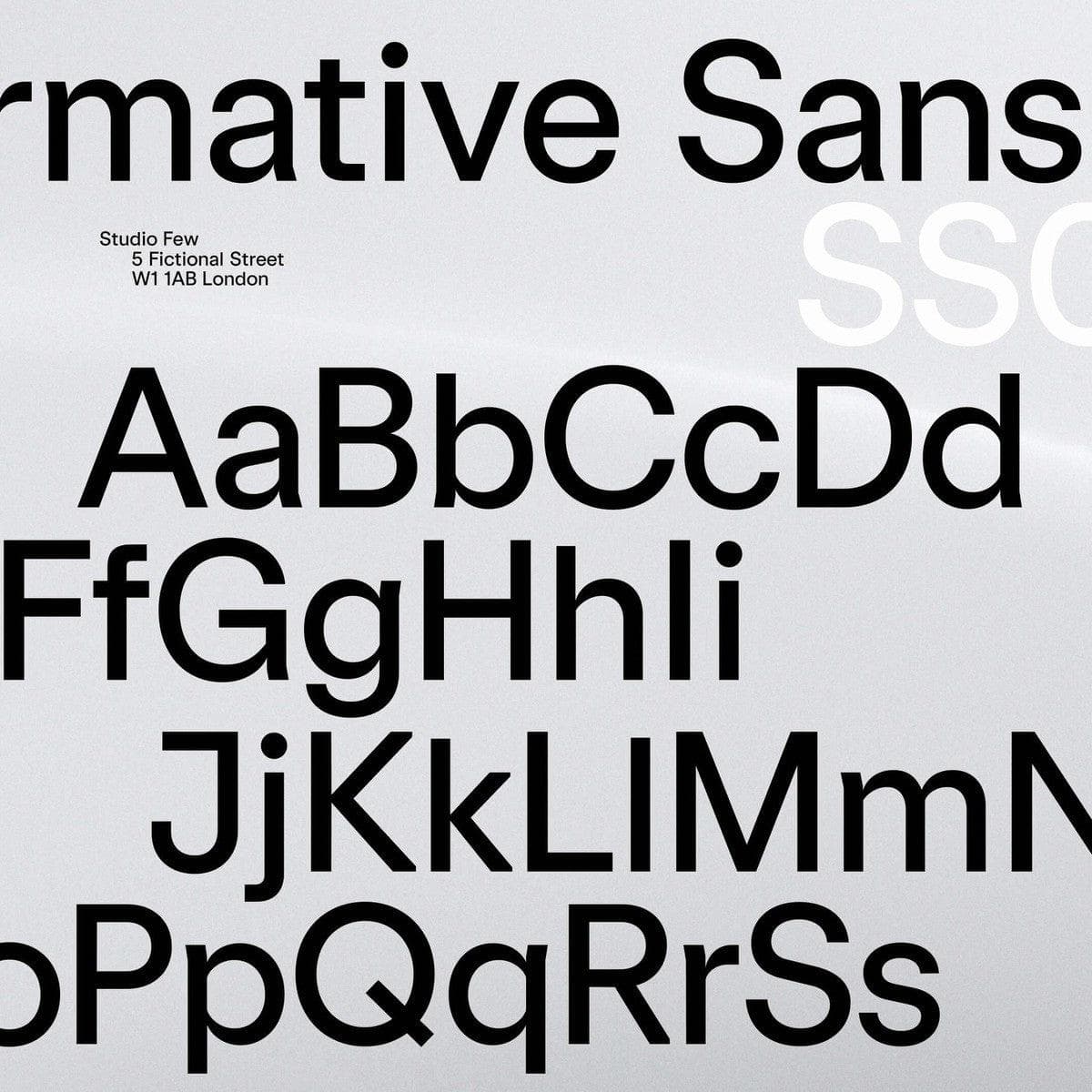
<p>Angled terminals, squared off bowls, and a balance of curved paths with straight. Formative is a grotesk with charm. Includes a stylistic set featuring standard 'text' style terminals.</p> <p>Full family purchases include a variable font file.</p>